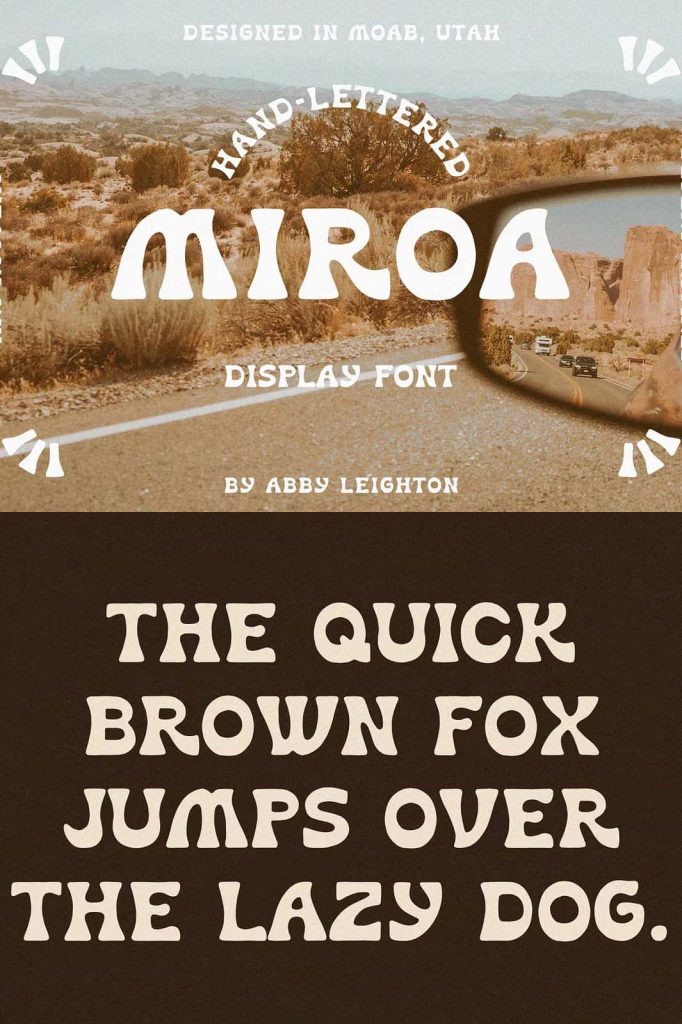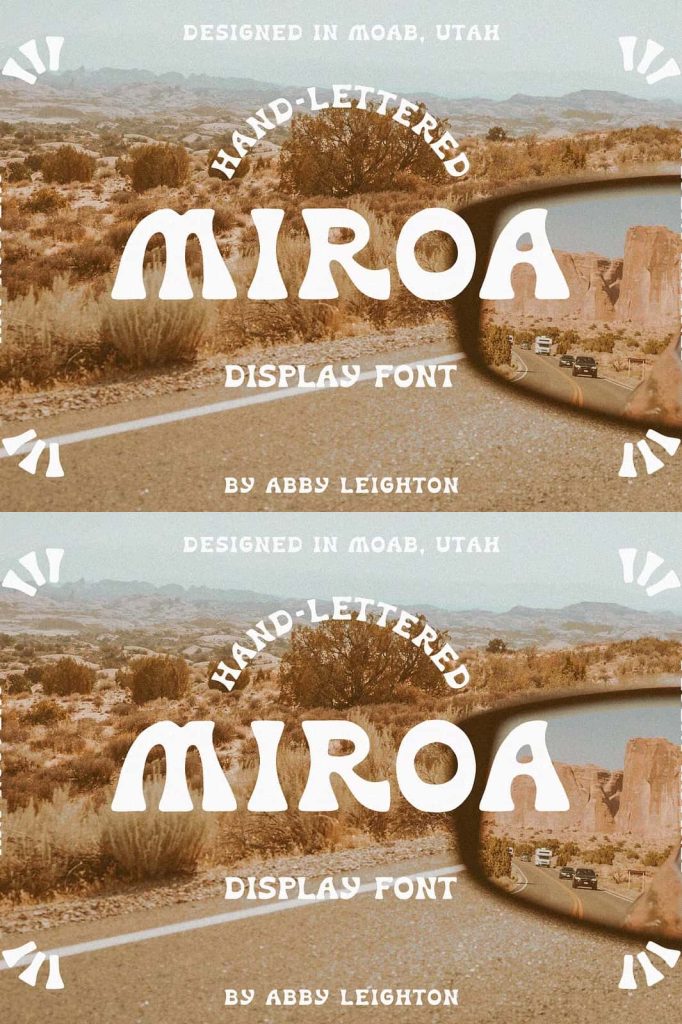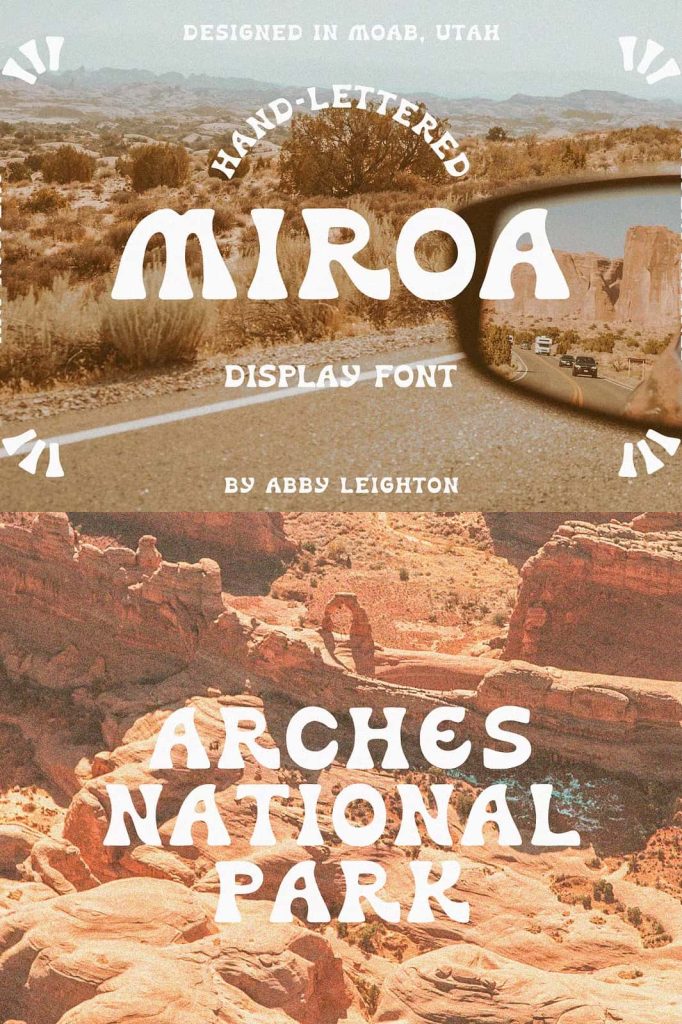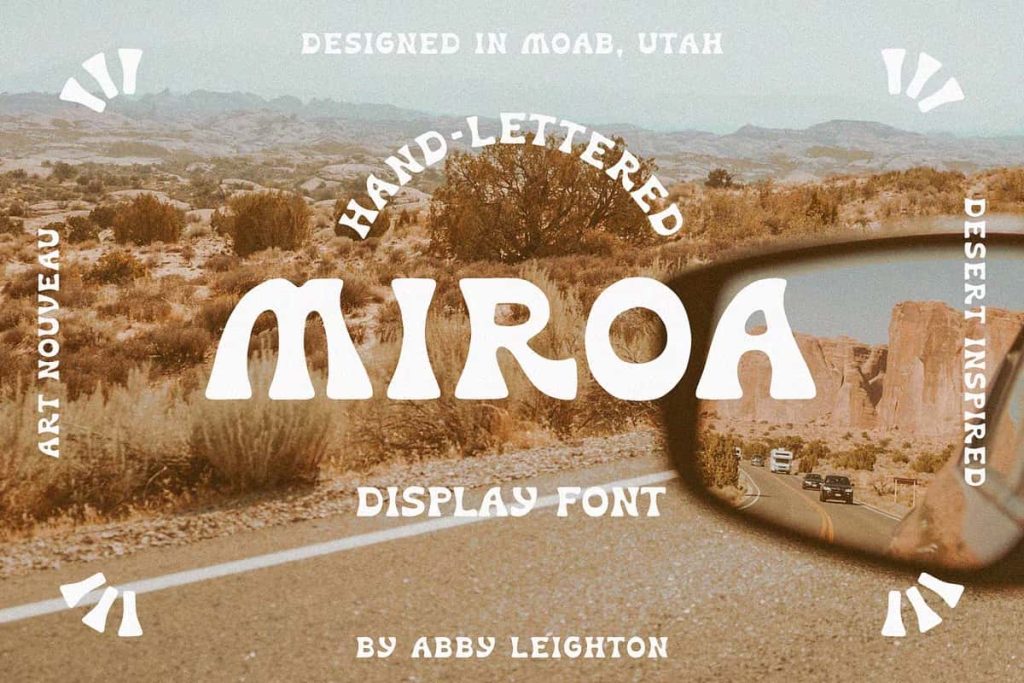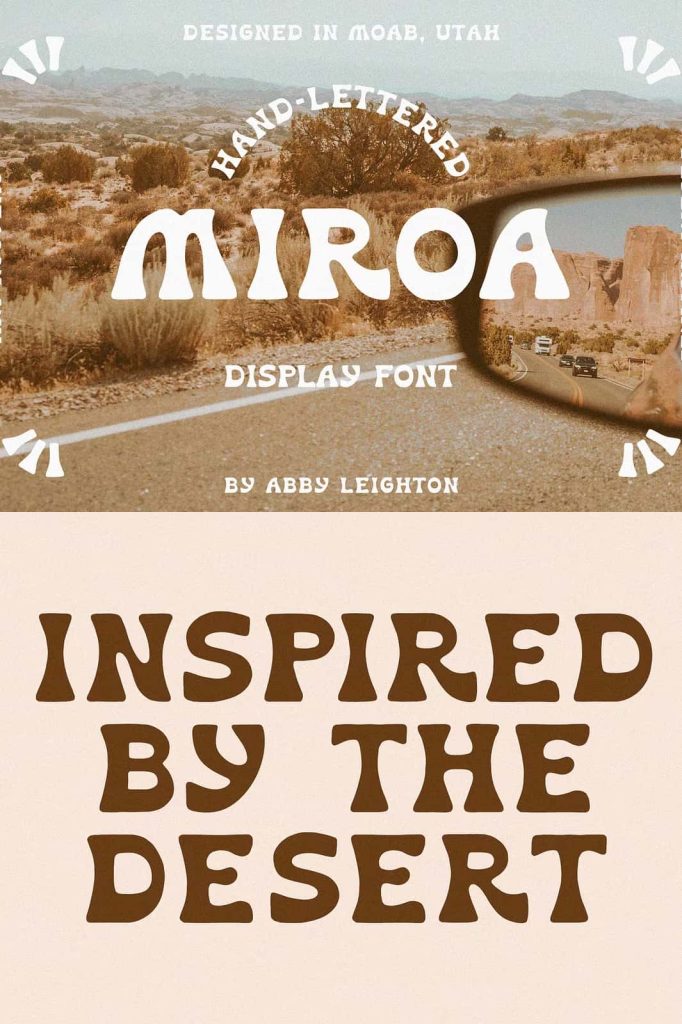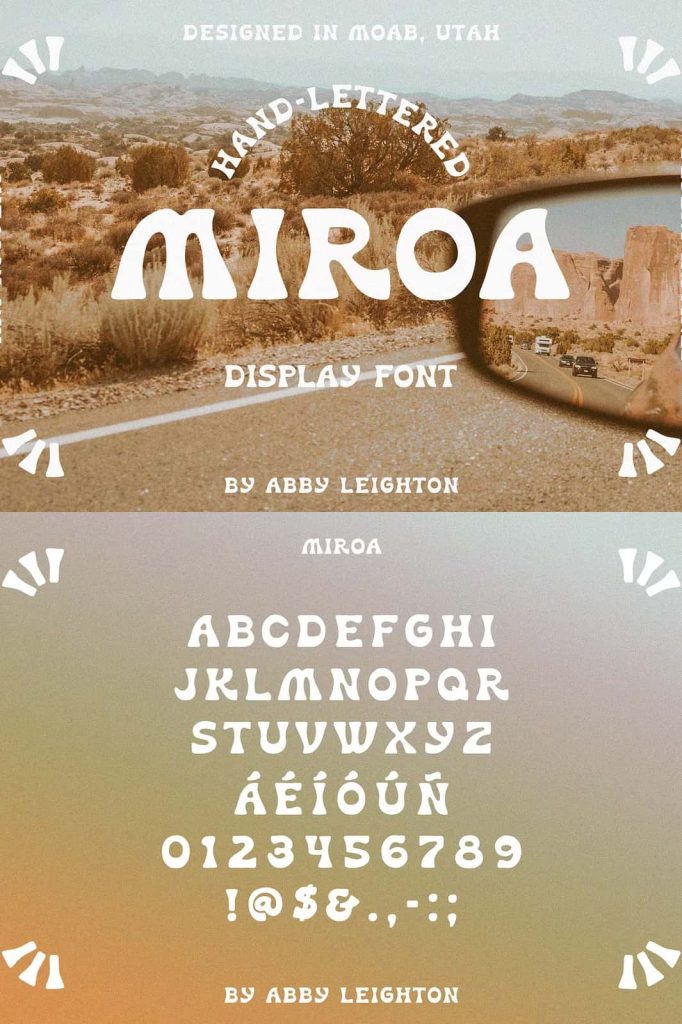
MIROA Art Nouveau Desert Typeface
MIROA is a distinctive Art Nouveau and desert-inspired typeface that combines vintage elegance with playful hand-drawn character. Created for designers who appreciate artistic typography, MIROA brings together flowing curves, retro influences, and handcrafted details to produce lettering that feels both nostalgic and refreshingly original. Whether you are designing a memorable logo, stylish branding, creative packaging, or eye-catching social media content, MIROA delivers personality and warmth with every character.
Inspired by the graceful decorative forms of the Art Nouveau movement and the natural beauty of desert landscapes, this font offers a unique visual identity that instantly stands out. Every letter has been carefully drawn to preserve an organic appearance, making your typography feel authentic instead of overly polished or mechanical.
A Unique Blend of Art Nouveau and Desert Inspiration
MIROA captures the flowing elegance associated with Art Nouveau while embracing the earthy charm and relaxed spirit of desert aesthetics. The result is a typeface that feels artistic, expressive, and full of character. Smooth curves, soft edges, and subtle imperfections give each letter a handcrafted appearance that adds depth and originality to every design.
This creative combination makes MIROA suitable for both vintage-inspired projects and modern visual identities. Its timeless style allows designers to create work that feels classic while remaining fresh and relevant.
Hand-Drawn Letterforms with Vintage Appeal
Authentic Handmade Character
Every character in MIROA has been individually crafted to replicate the beauty of genuine hand lettering. Instead of relying on perfectly symmetrical forms, the font embraces subtle irregularities that give each word a natural rhythm and handcrafted personality. This artistic approach helps your typography appear more inviting, creative, and memorable.
Retro Style with Modern Versatility
Although MIROA draws inspiration from retro typography, it remains highly versatile for contemporary design work. The balanced letterforms maintain excellent readability while preserving the decorative charm that makes the font so distinctive. This flexibility allows designers to use MIROA across a wide variety of print and digital applications.
Designed for Creative Professionals
MIROA is an excellent choice for graphic designers, illustrators, branding specialists, and creative entrepreneurs looking for typography with personality. Its decorative style works beautifully as a focal point while remaining easy to combine with complementary fonts for complete visual systems.
The expressive letterforms immediately attract attention, helping brands establish a memorable visual presence across multiple platforms. Whether you are creating elegant packaging or artistic promotional materials, MIROA provides the handcrafted aesthetic that modern audiences appreciate.
Perfect for Multiple Design Applications
The versatility of MIROA makes it suitable for countless creative projects. Its decorative yet readable design adapts effortlessly to both commercial and personal work.
Recommended Uses
- Brand identities and logo design.
- Product packaging and labels.
- Boutique and lifestyle branding.
- Editorial layouts and magazine headlines.
- Poster and flyer designs.
- Wedding invitations and stationery.
- Greeting cards and personalized gifts.
- Social media graphics and promotional content.
- Website banners and landing page headers.
- Merchandise, apparel, and custom prints.
- Creative quotes and inspirational artwork.
- Restaurant menus and café branding.
Its decorative personality allows every project to communicate warmth, creativity, and artistic craftsmanship without overwhelming the overall design.
Create Memorable Typography
Typography often defines the first impression of a brand or creative project. MIROA helps transform ordinary text into expressive lettering that immediately captures attention. The combination of flowing Art Nouveau influences, vintage aesthetics, and hand-drawn construction gives designers the ability to build strong visual identities with minimal effort.
Whether used for a single headline or throughout an entire branding system, MIROA consistently delivers elegance, originality, and handcrafted appeal.
Balanced Style and Readability
While MIROA embraces decorative design elements, it also maintains balanced proportions that improve readability across different sizes. Large headlines reveal the intricate details of every letter, while medium-sized text continues to retain clarity and visual harmony. This versatility makes the typeface suitable for both print production and digital media.
The carefully spaced characters create comfortable reading while preserving the playful energy that defines the font’s personality. Designers can confidently use MIROA for logos, titles, short paragraphs, product names, and promotional graphics.
If you are searching for a typeface that combines vintage charm, handcrafted detail, and modern flexibility, MIROA is an excellent addition to your font collection. It brings originality to branding, sophistication to editorial projects, and artistic warmth to every creative design, allowing your work to leave a lasting impression on every audience.